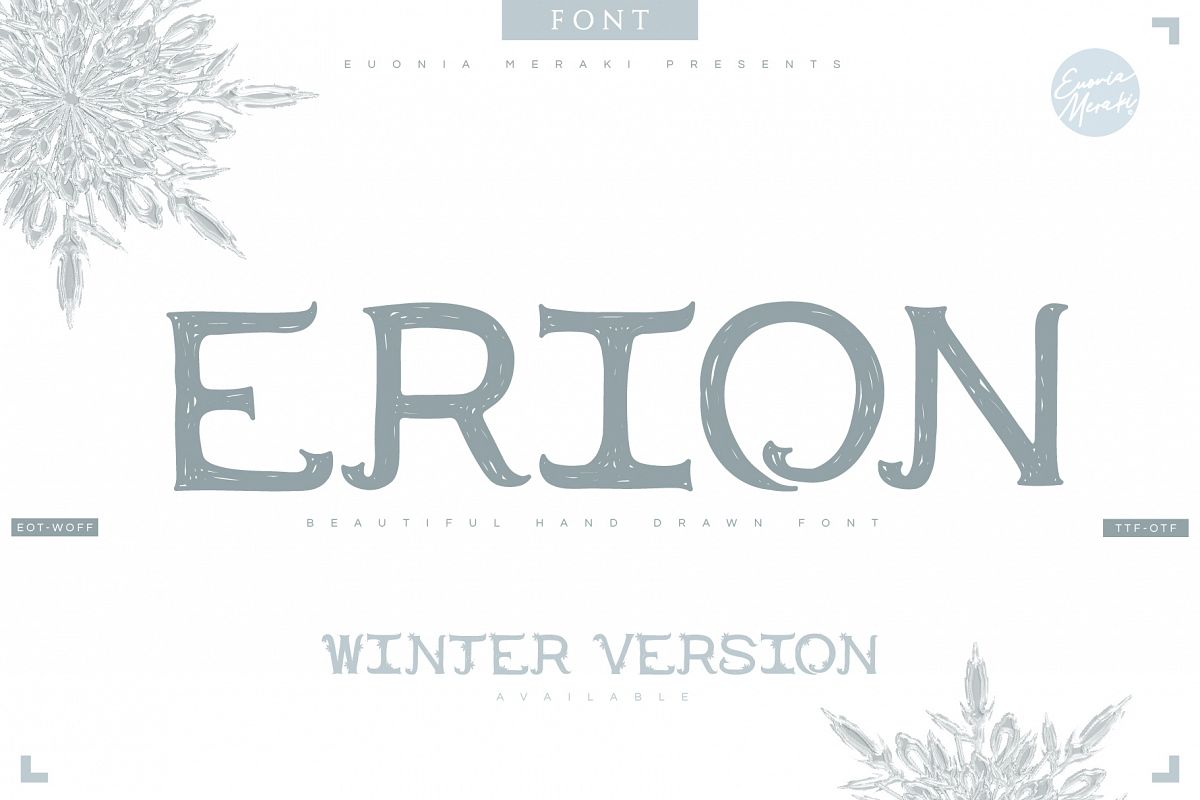
4in1 ERION FONT - Christmas Winter Version
Hello lovely people!This time, I Introduced you to my font creation, "ERION", hand drawn font with vintage - classical felling, completed with the winter version. This font are perfect for holiday season, thanksgiving, christmas and new year, also great for card design, branding, book cover, poster, wedding invitation and much more!
Erion FONT - Winter Version